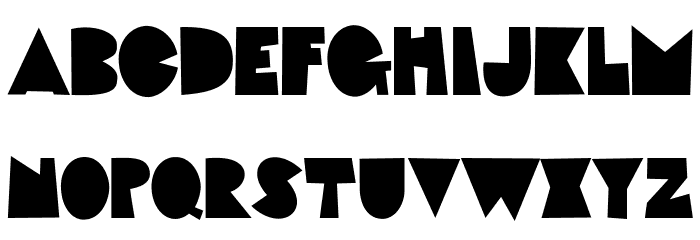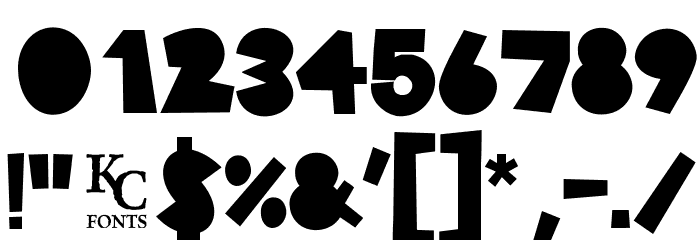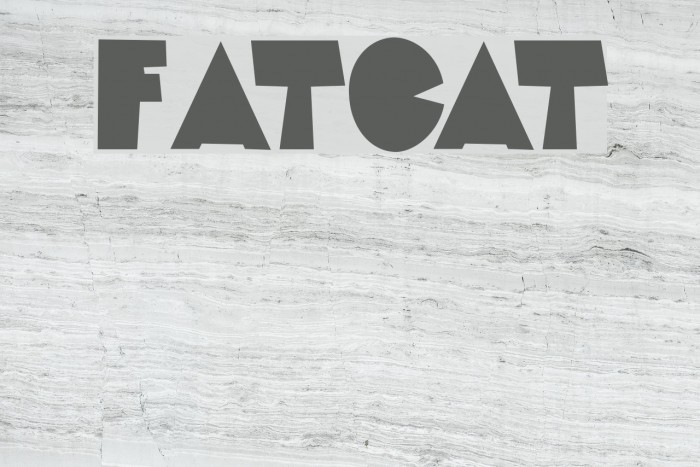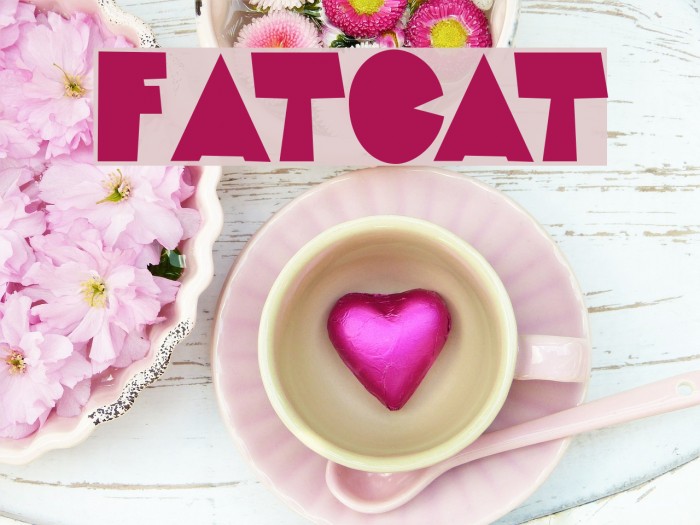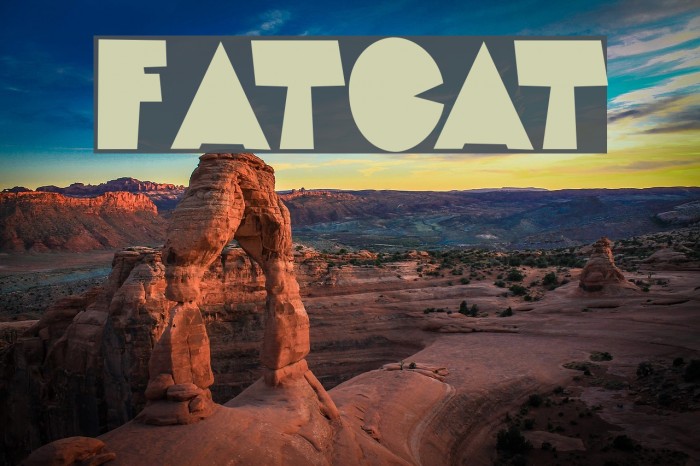
FatCat Font
This font features bold, geometric shapes with a playful and chunky aesthetic. The characters are designed with exaggerated angles and curves, creating a sense of movement and energy. The uppercase and lowercase letters maintain a consistent style, with wide strokes and a heavy weight that make them stand out. The numbers and special characters follow the same bold and dynamic design, ensuring a cohesive look across all elements. This font is perfect for projects that require a fun and eye-catching display, making it ideal for posters, headlines, and branding materials.
A bold, geometric font with a playful and chunky style.
- Font: FatCat
- Proposed Projects: Ideal for posters, headlines, branding, and any project needing a fun, eye-catching display.
- Overall Style: Playful, Modern